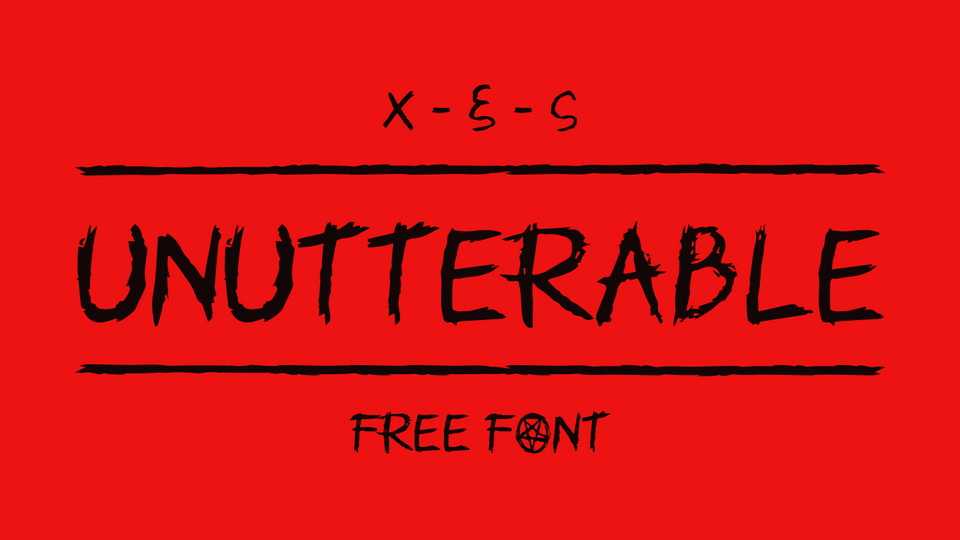
Download Unutterable font, a creepy and scary hand painted brush typeface with a rough textured look. Unutterable font is perfect for movie titles, album artworks, Halloween designs and any project that needs a dark handmade feel.